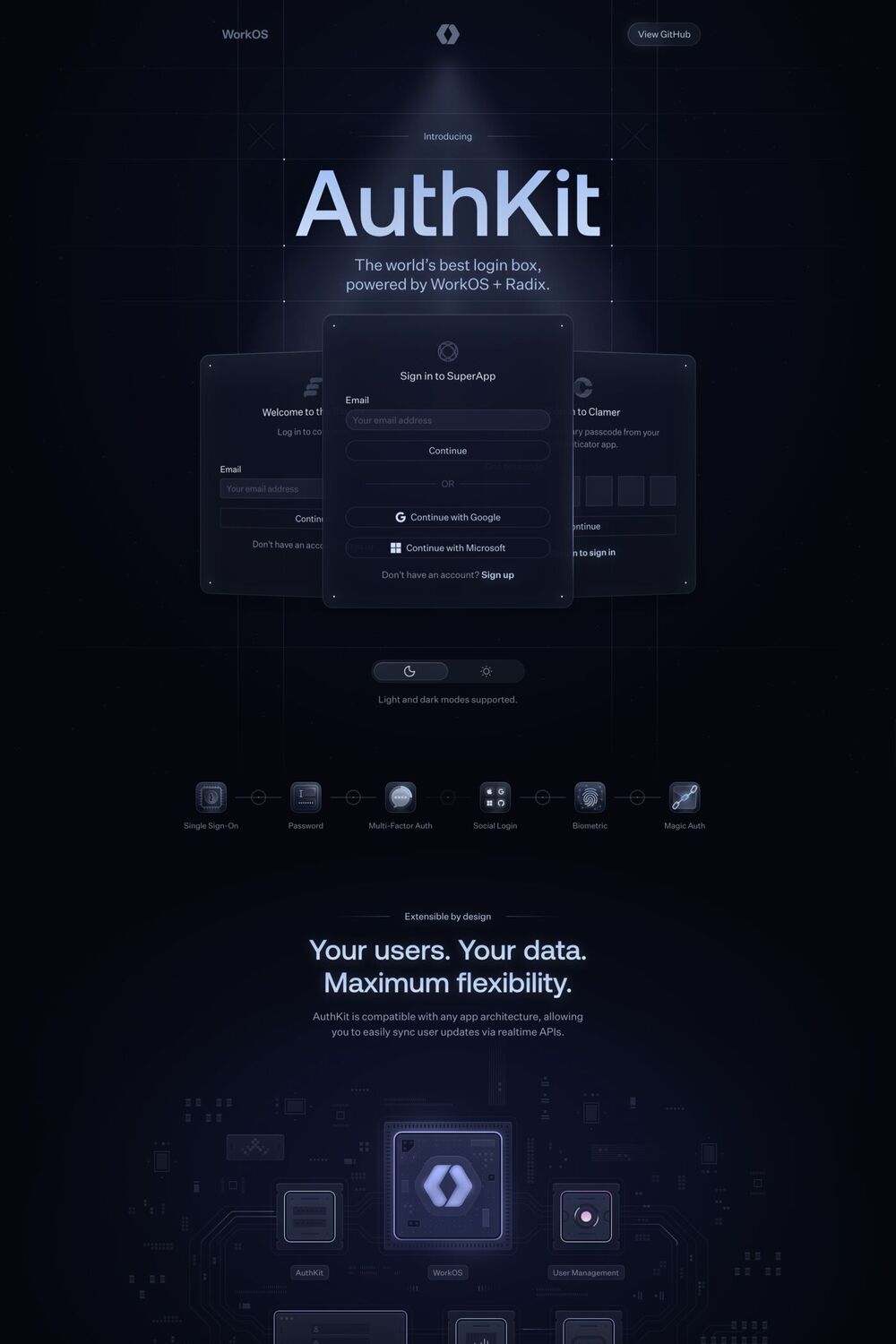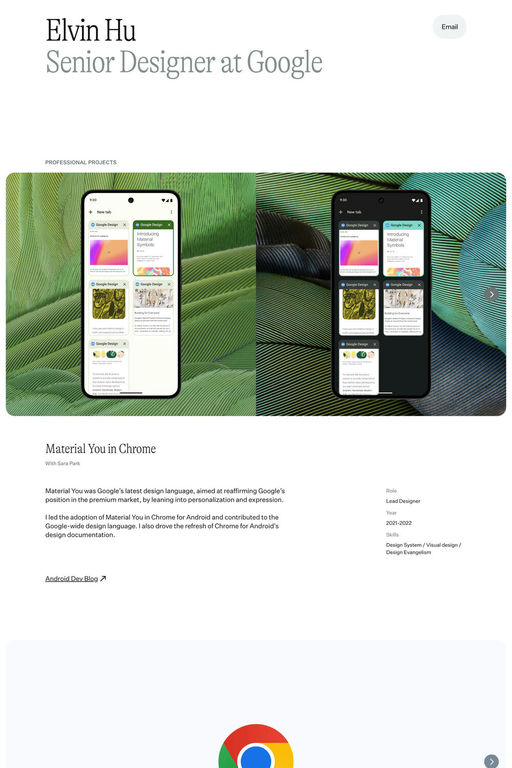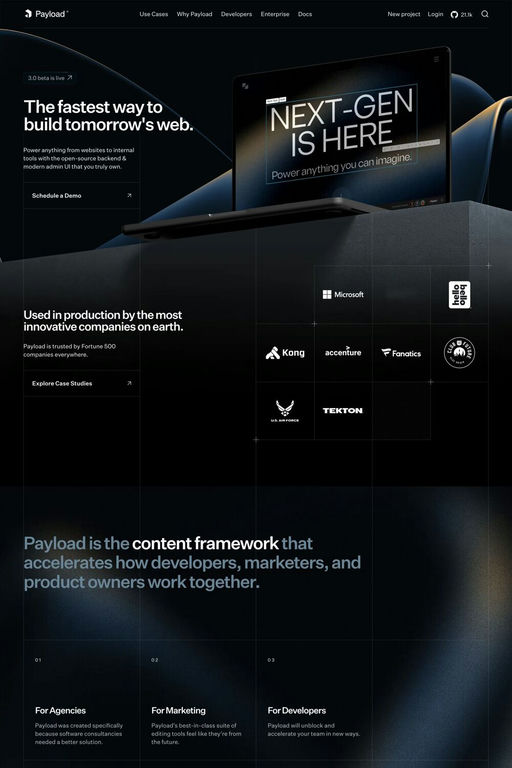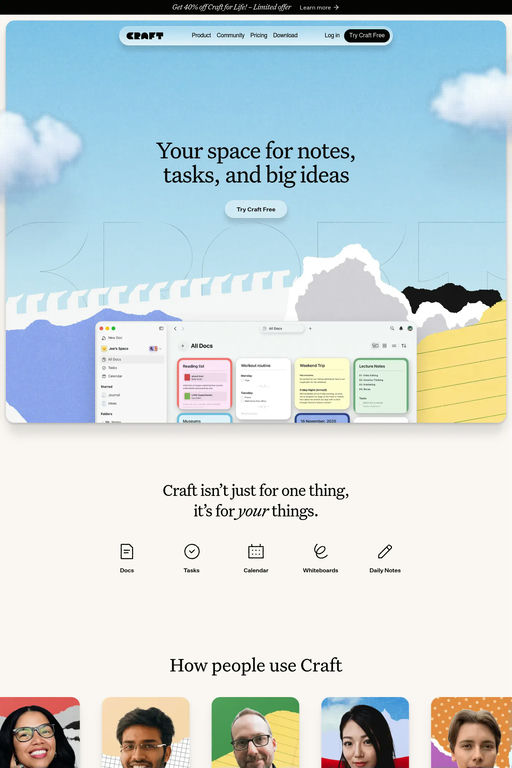
Untitled Sans is a sans-serif typeface from Klim Type Foundry.
Untitled Sans is a plain, neo-grotesk sans. Test the free fonts, see them in use, read about their design and buy for Desktop, Web & App.
A1 features 6 websites using Untitled Sans, including Poolside, NoGood, and Craft. They lean towards Animated, Isometric, and Outline design styles, and they’re most often built with Next.js, SvelteKit, and Framer.